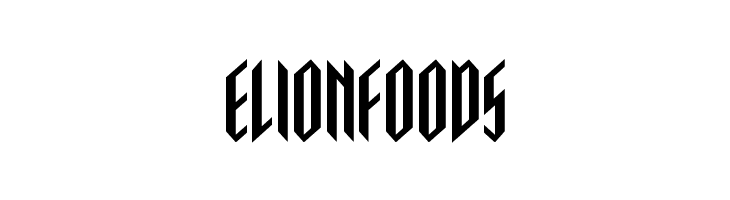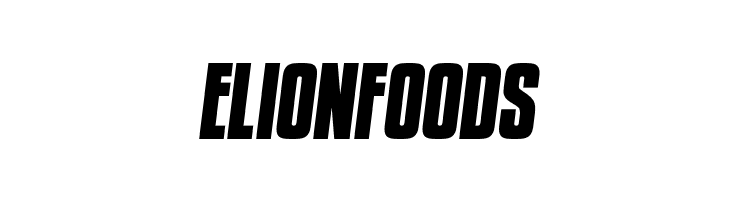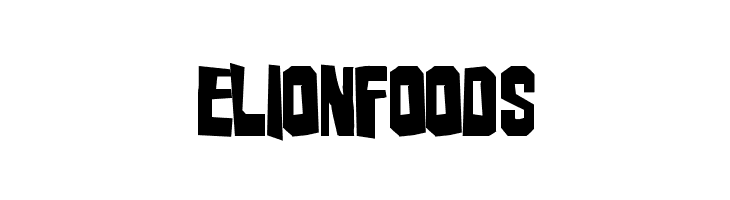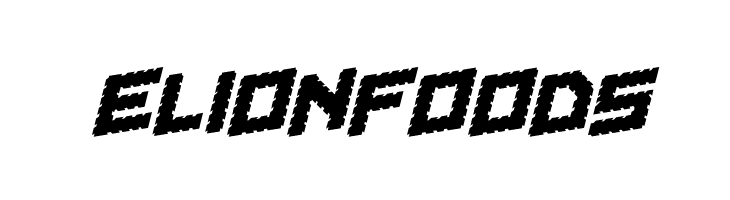
A jagged, bold font with a dynamic and edgy design.
A bold, angular font with a gothic influence and condensed appearance.
A bold, italicized font with thick strokes and tight spacing, perfect for dynamic headlines.
A bold, angular, and distressed font with an expanded and italic style.
A bold, jagged font with dynamic, aggressive styling.
A bold, rugged, semi-italic font with jagged edges and a dynamic style.
A bold, jagged, and staggered font with an edgy and rugged style.
A bold, angular, and condensed italic font with a rugged, modern style.
A bold, jagged font with sharp, angular edges and a rough, intense style.
A bold, angular font with a dynamic, blade-like design and slanted orientation.